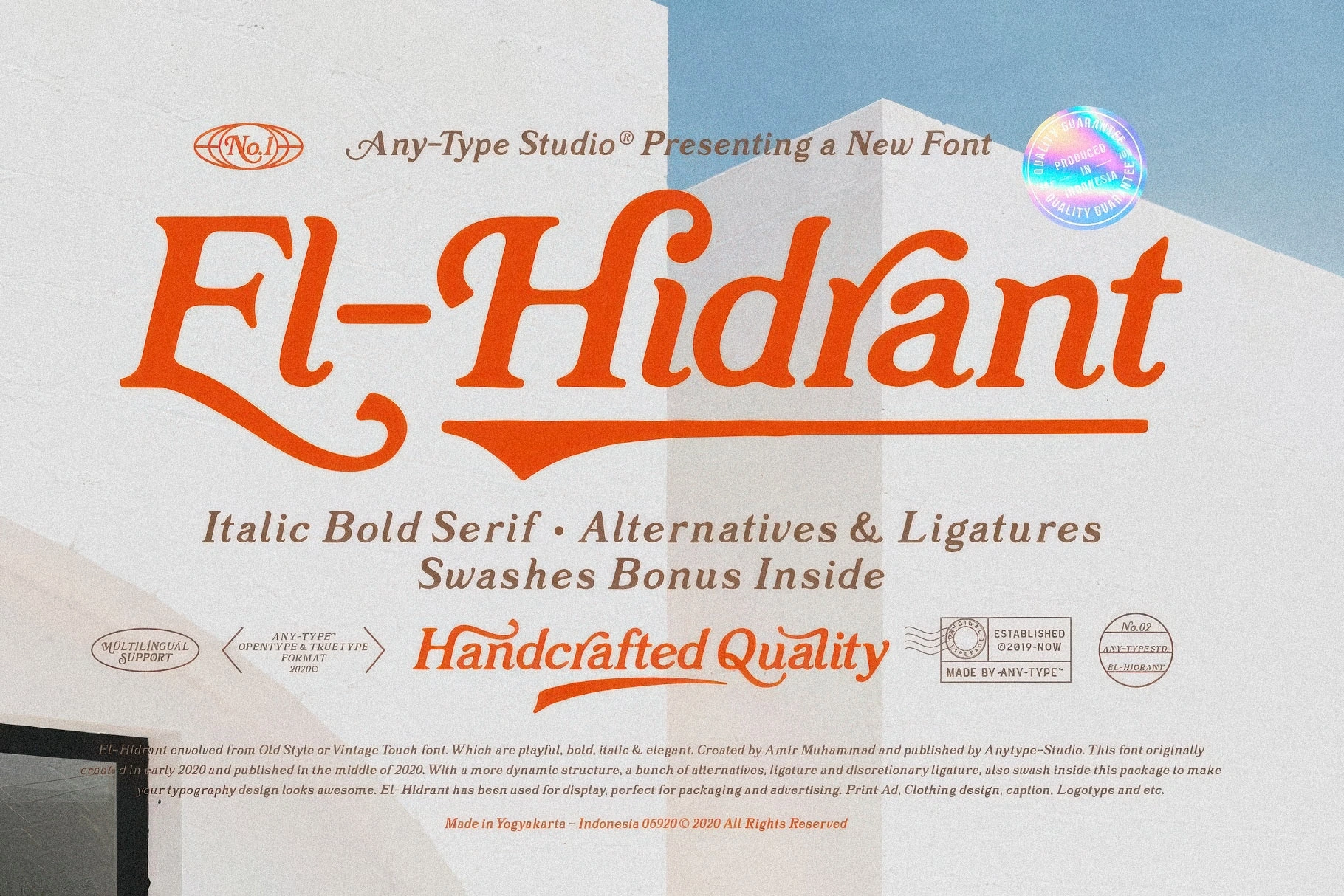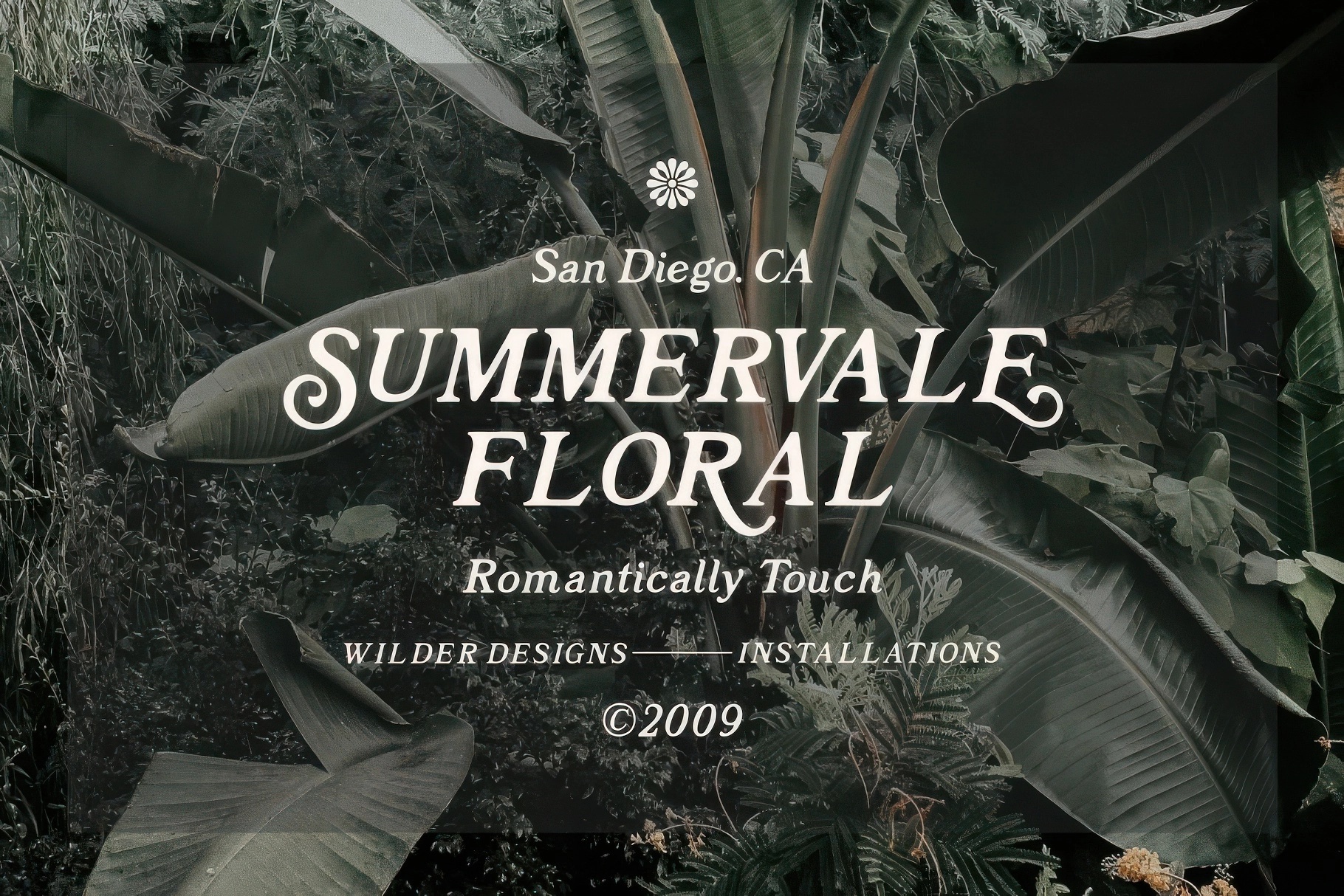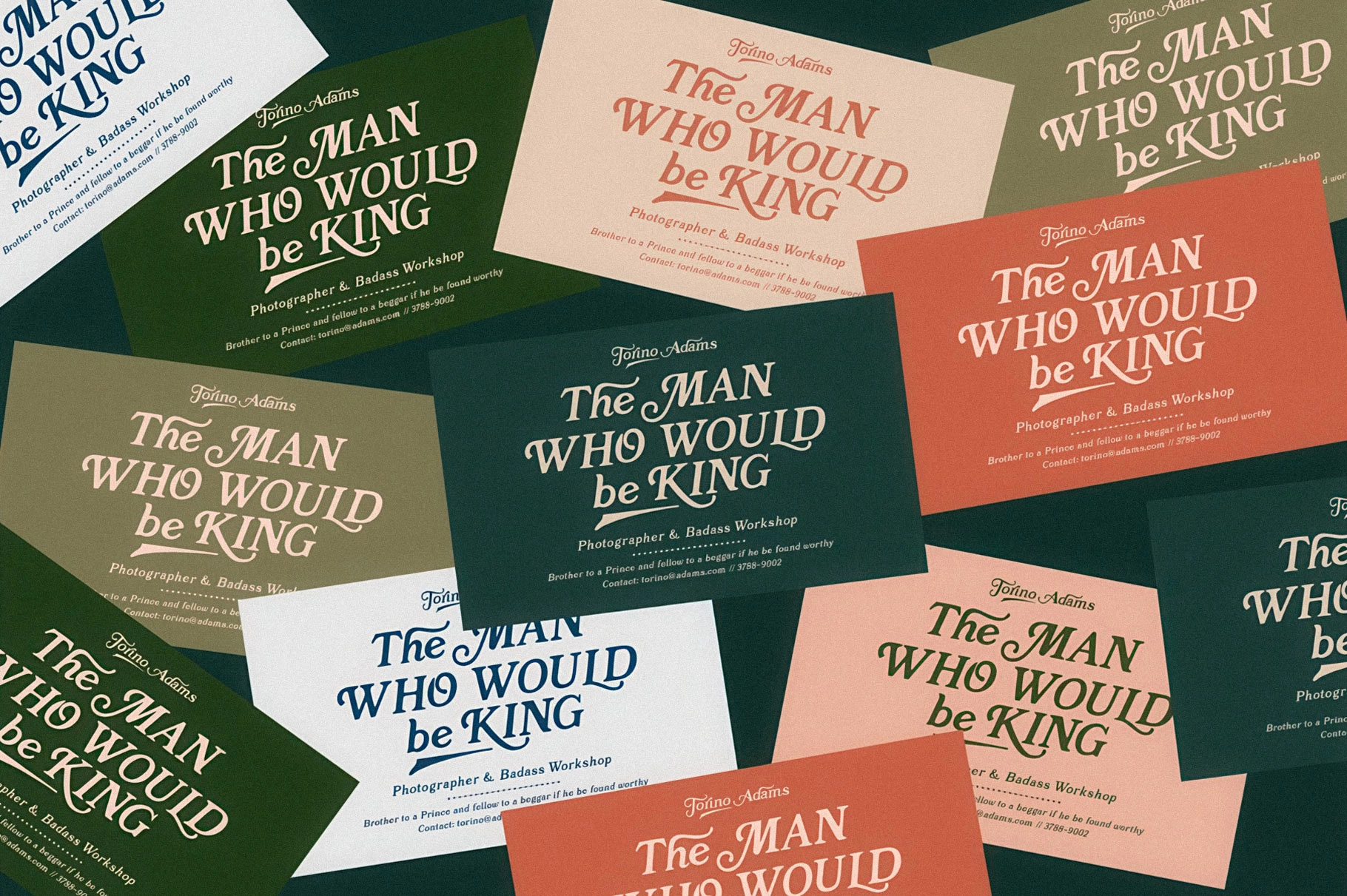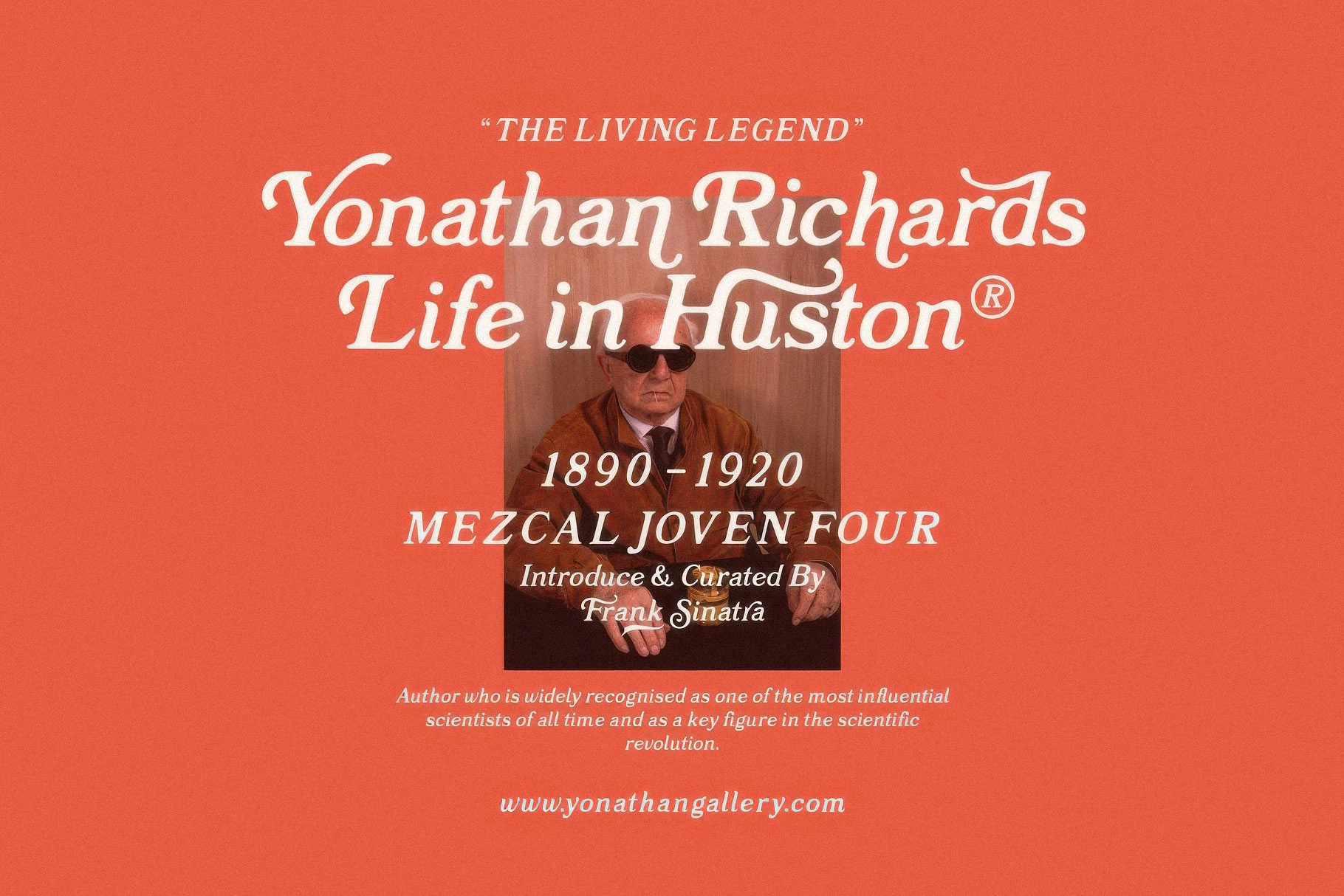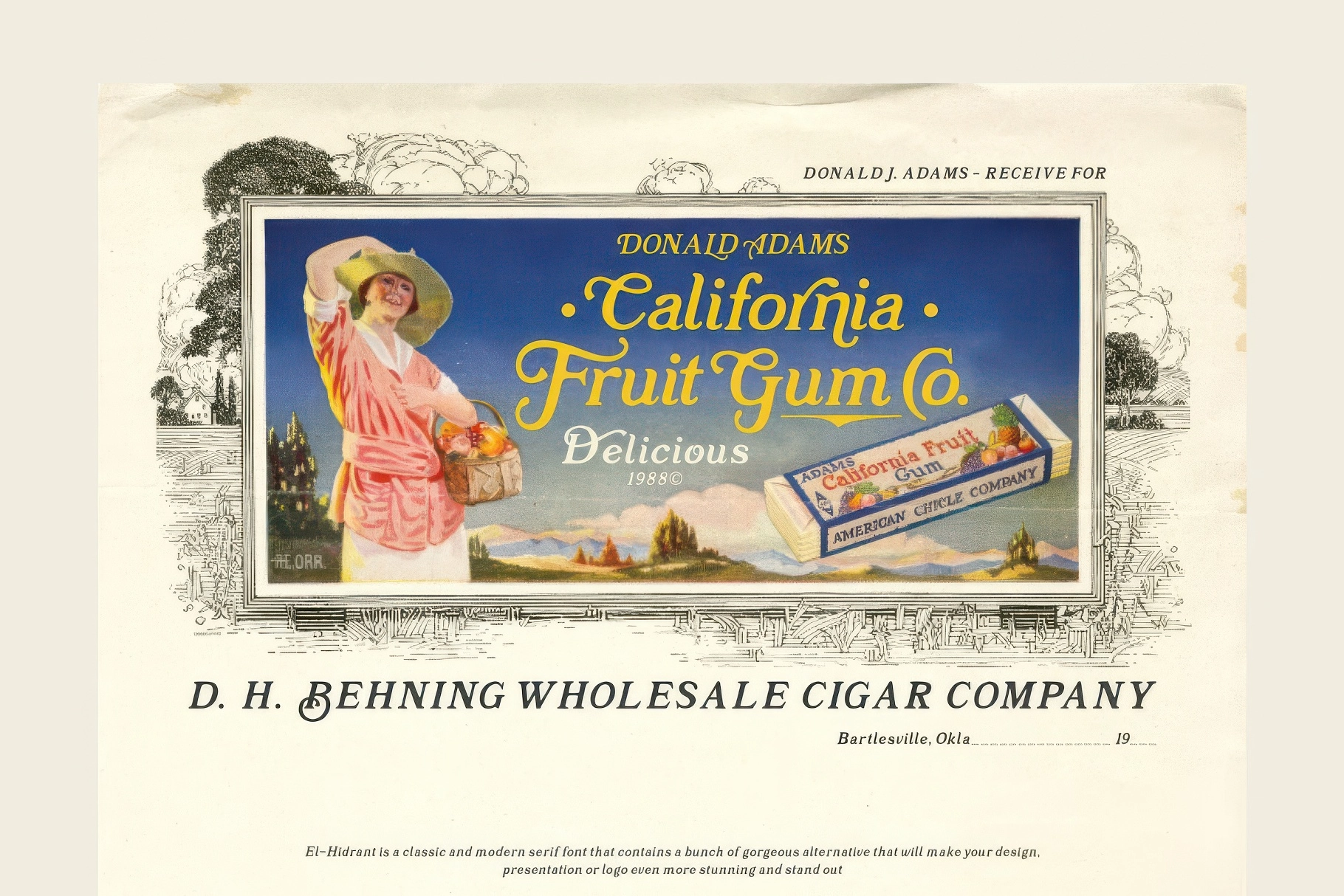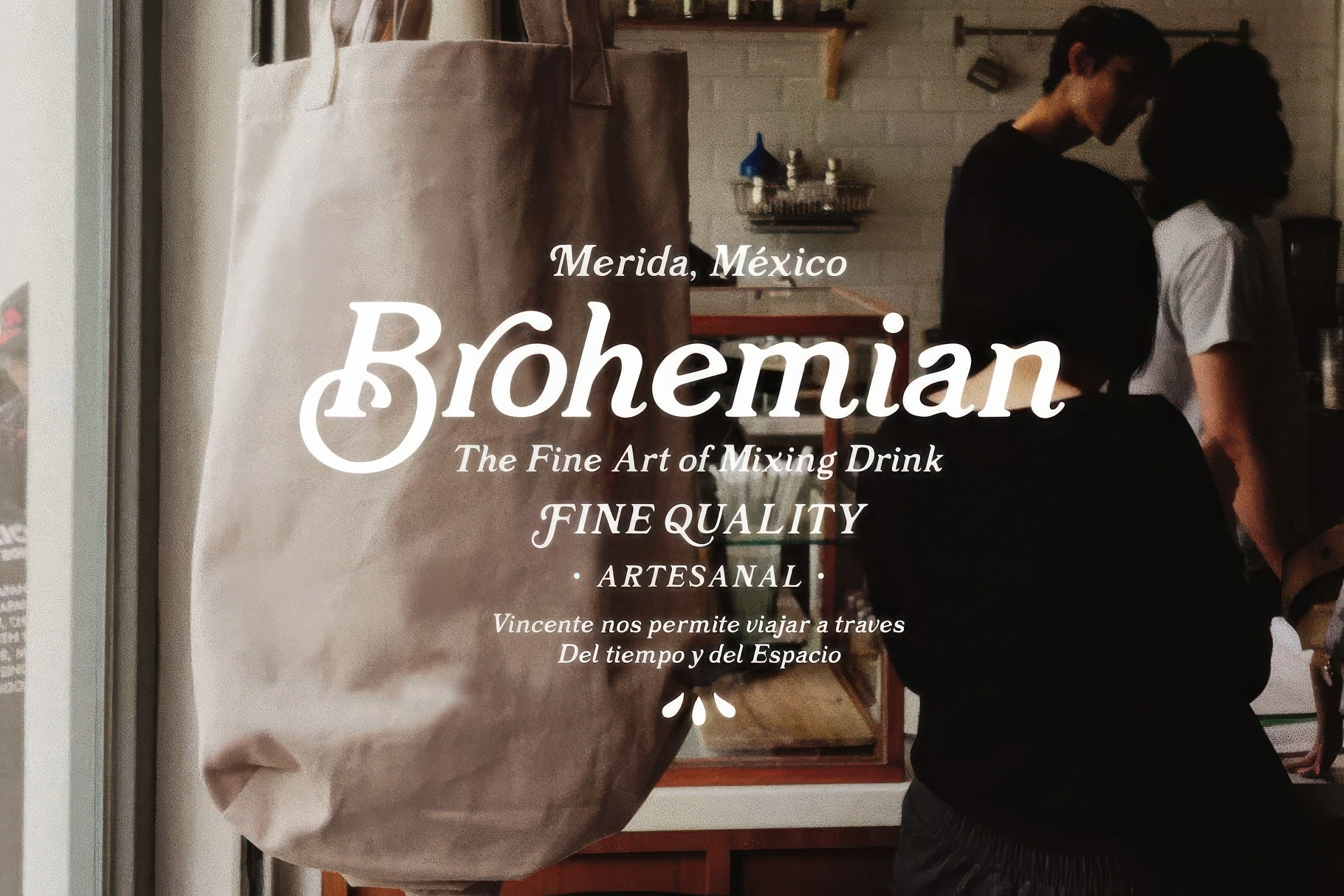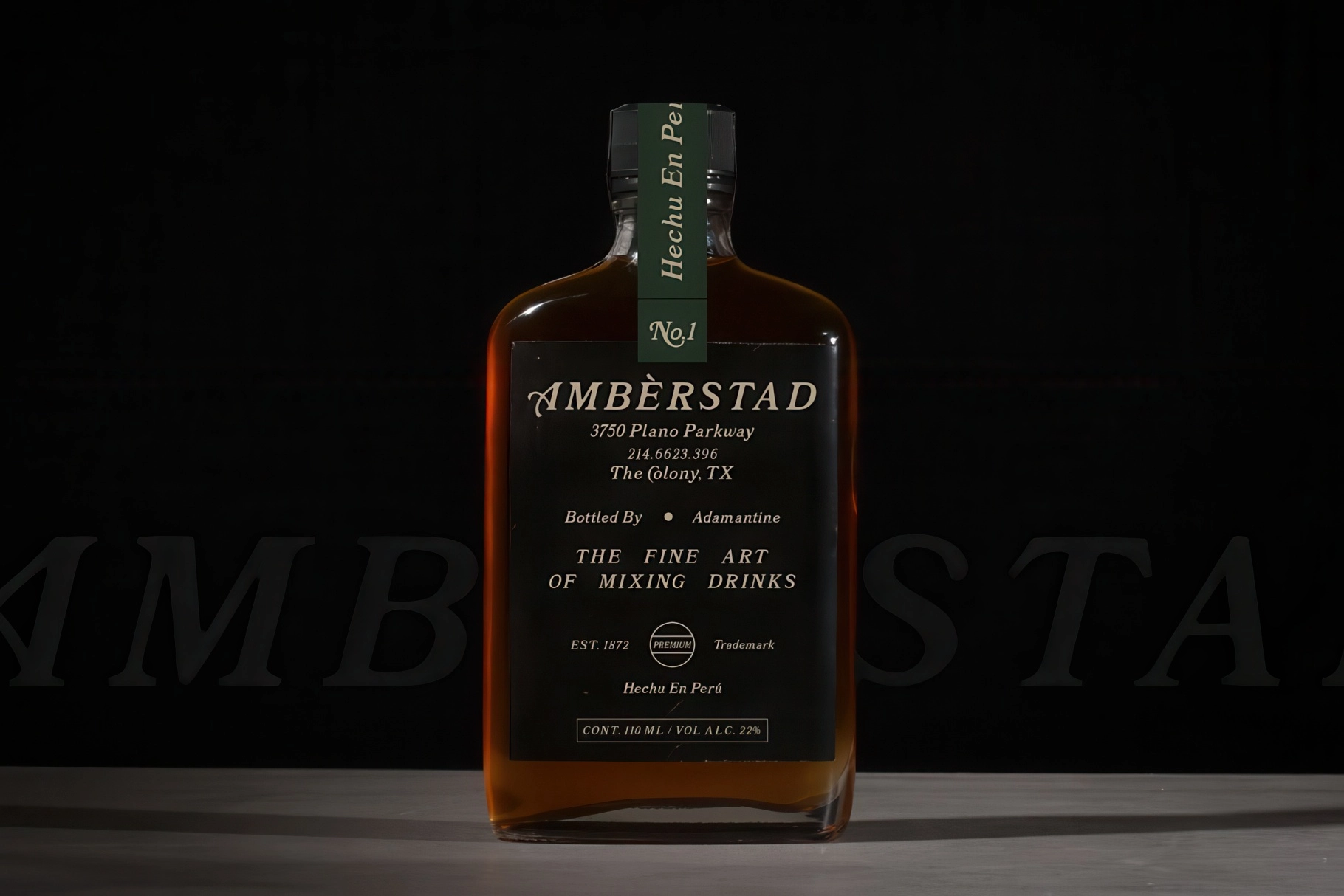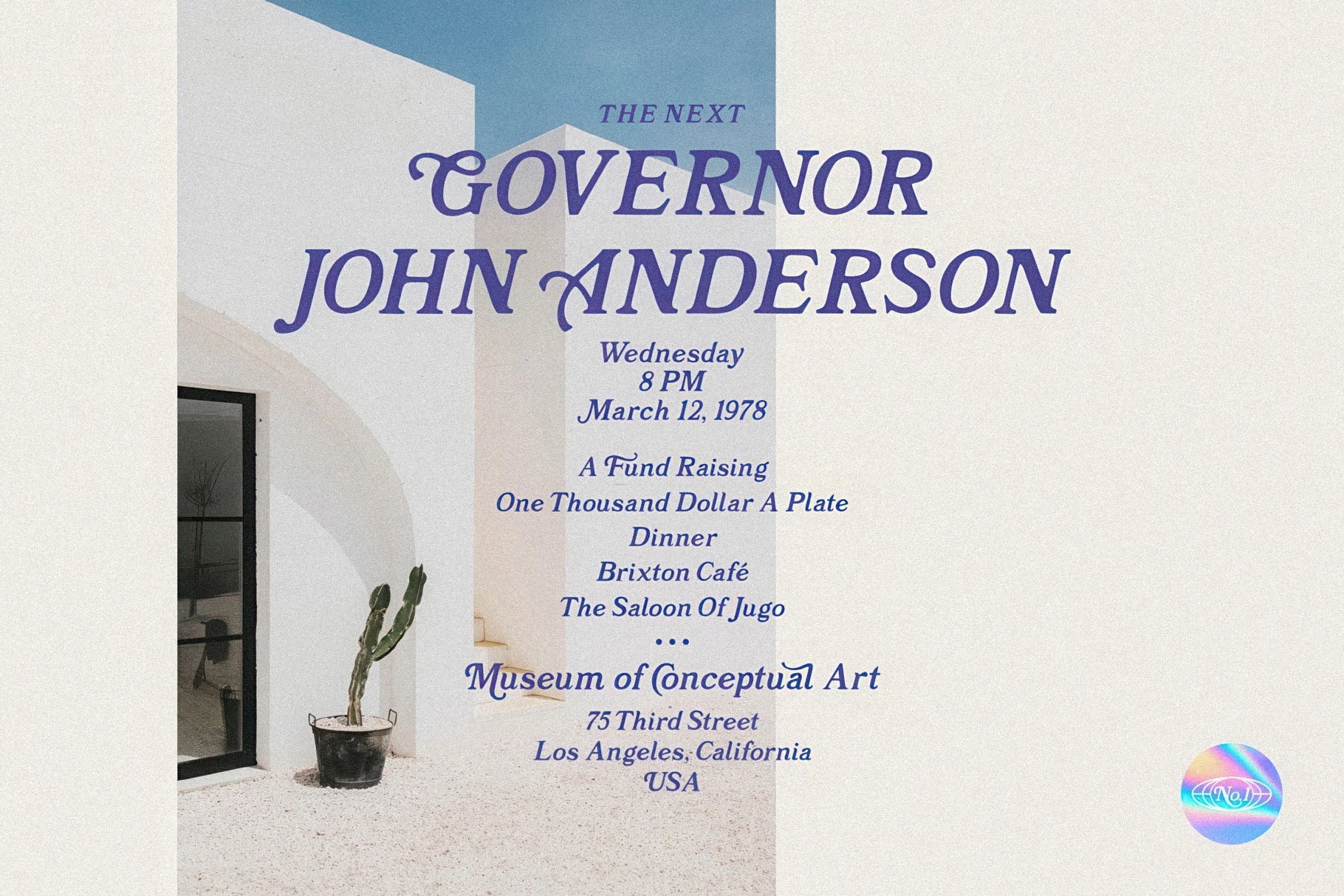
El-Hidrant: Serif Font With Swashes
El Hidrant
El Hidrant Swash
El-Hidrant draws its italic curves with theatrical flair. Its sweeping terminals, angled stress, and ornamental swashes nod to 18th-century type traditions. The structure pays homage to Caslon and Bookman while carving out something sharper and more expressive.
Its character works best in visual identities: e.g., boutique packaging, wine labels, gallery invitations, beauty editorials, signage, vintage-inspired branding, poetry book covers, and restaurant menus. Alternates and discretionary ligatures add a fluid, custom-built feel to headlines and logotypes, and the bonus swash set introduces extra liberty across layouts.
• ligatures, discretionary ligatures & stylistic alternates;